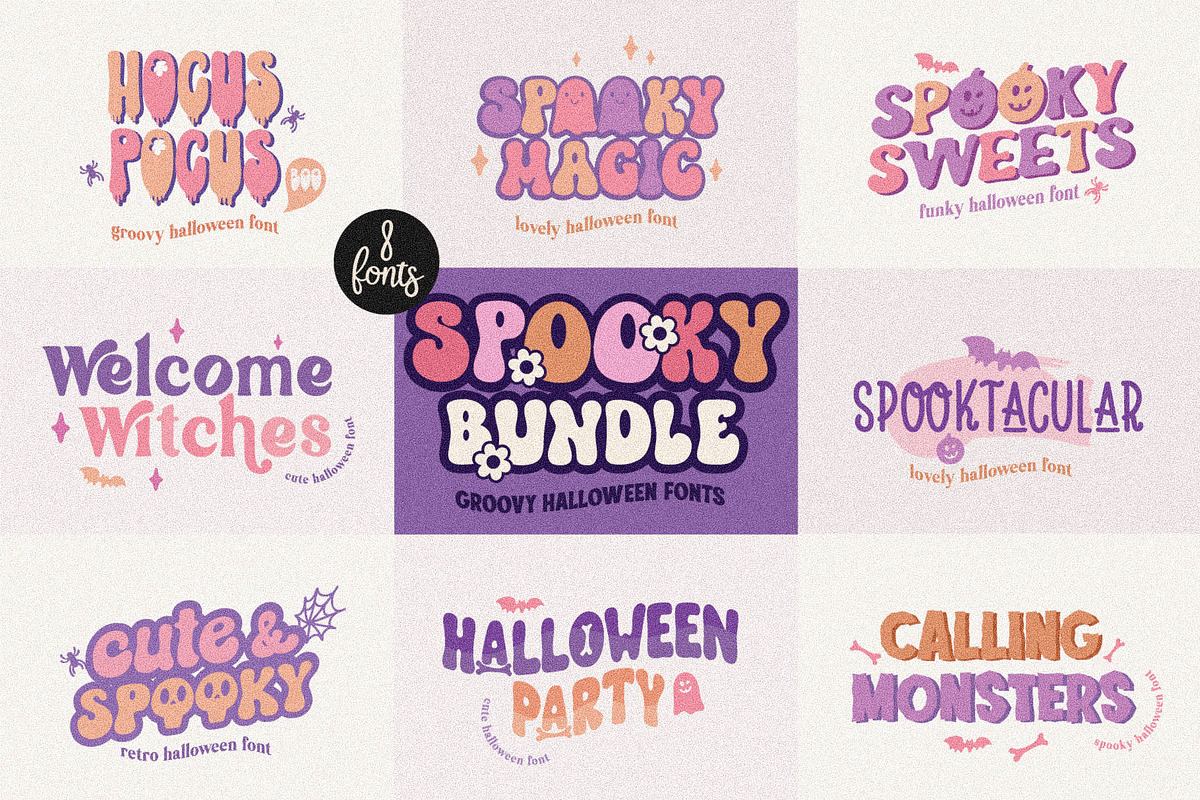
Spooky Halloween Bundle – 8 Fonts Free Download is a frightfully fun collection of typefaces perfect for all your spooky season designs. Please note, you are required to purchase this font bundle for commercial use. It is available for free download for testing and personal projects only.
This bundle features 8 unique Halloween-inspired fonts—ranging from creepy scripts to eerie display styles—making it ideal for party invitations, haunted house flyers, trick-or-treat signs, themed merchandise, and social media graphics. Each font captures the spirit of Halloween with bold personality and playful terror.